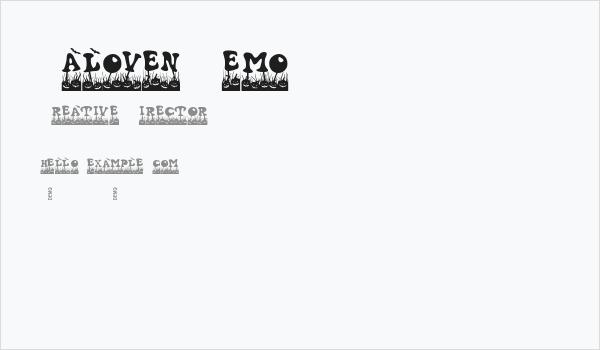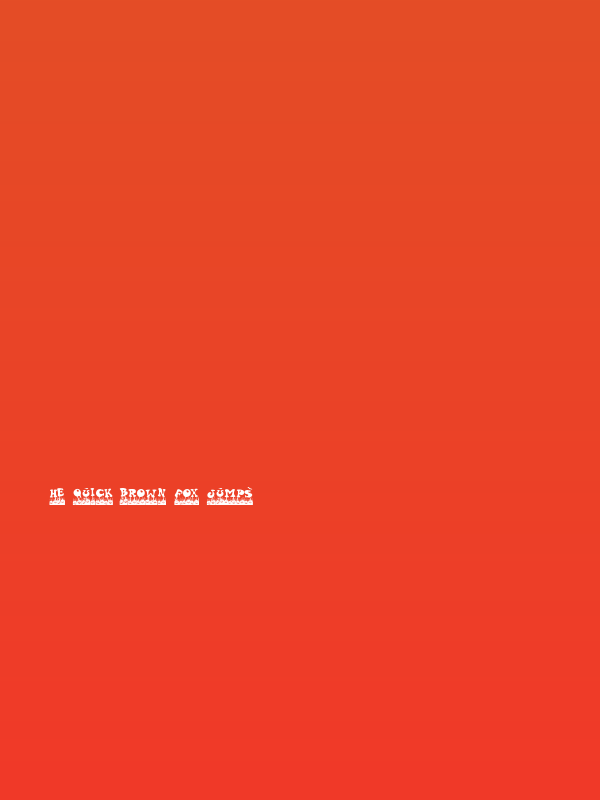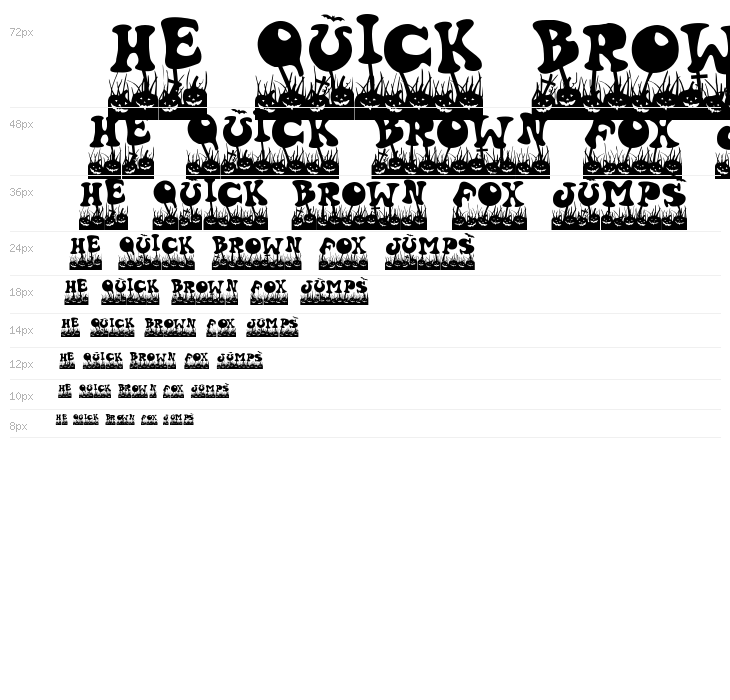
Haloven Demo Font
Haloven Demo Description
This font features a playful and spooky Halloween theme, with each letter adorned with bats, pumpkins, and grass motifs. The uppercase letters are bold and have a whimsical, slightly irregular shape that adds to the eerie charm. The decorative elements integrated into the characters make it ideal for seasonal designs. The font captures the essence of Halloween with its unique and eye-catching style, perfect for creating festive and themed graphics.
| Proposed Projects | Ideal for Halloween party invitations, themed posters, event flyers, and seasonal greeting cards. |